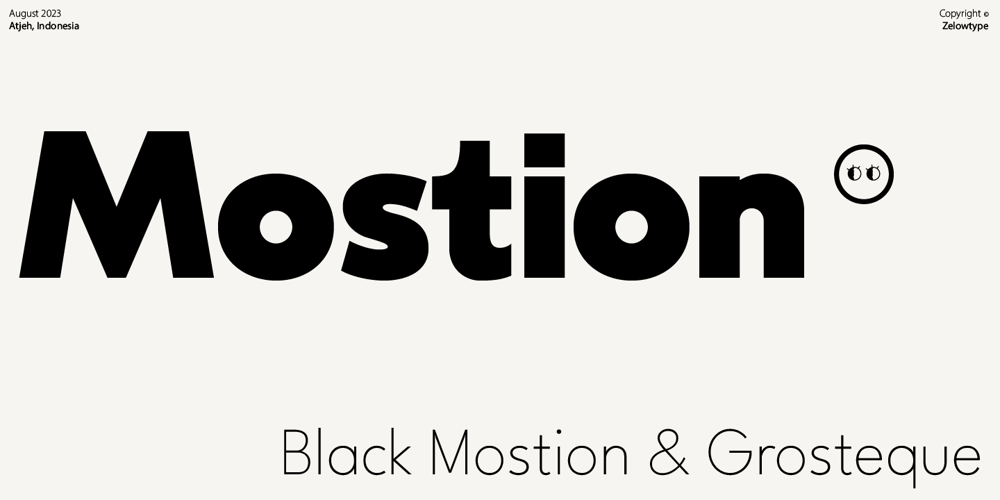
ZT Mostion
ZT Mostion font
ZT Mostion Font Family was designed by Khairun Nas and published by Zelow Type. ZT Mostion contains 2 styles and family package options. Introducing “ZT Monstion,” a fusion of sans and grotesque styles, both in bold weight, radiating an essence of simplicity and modernism. Crafted meticulously, this typeface embodies the purity of sans-serif aesthetics while embracing the boldness of grotesque forms. Its carefully refined x-height and expertly smoothed angles create a mesmerizing balance, where minimalistic design meets commanding boldness. With each character empowered by the weighty black typography.